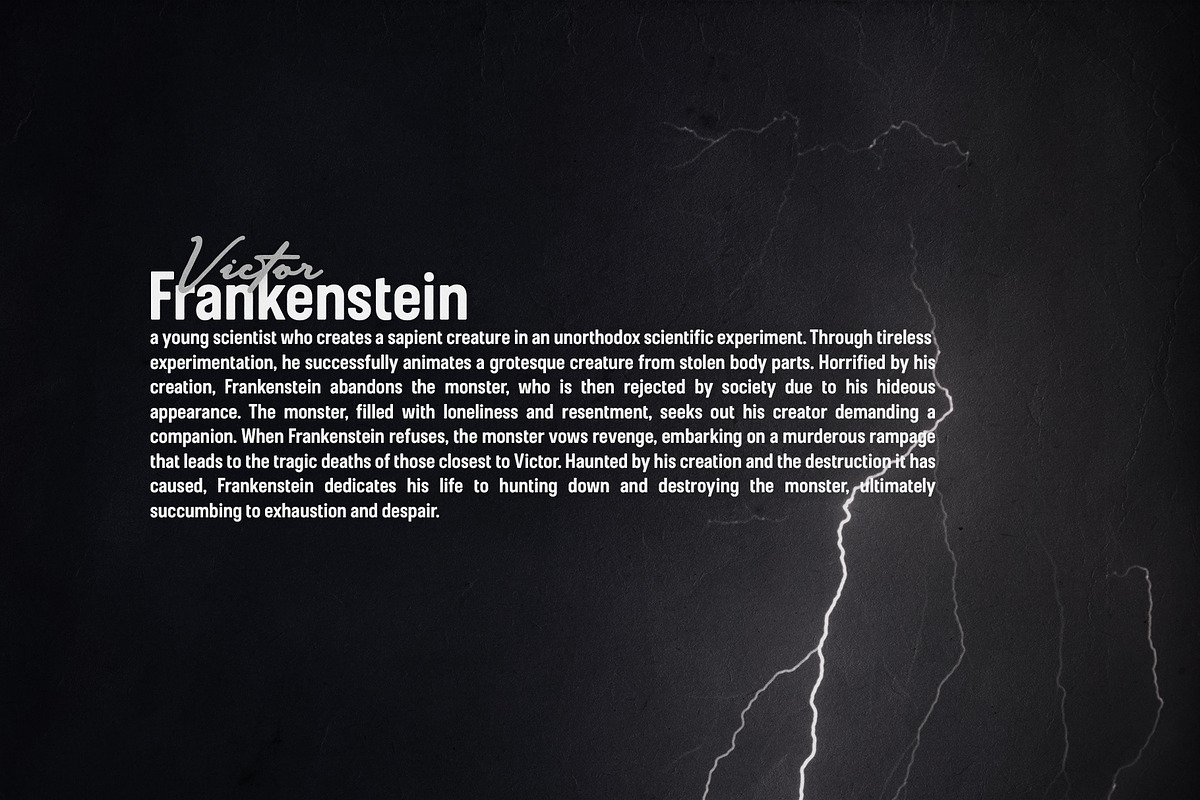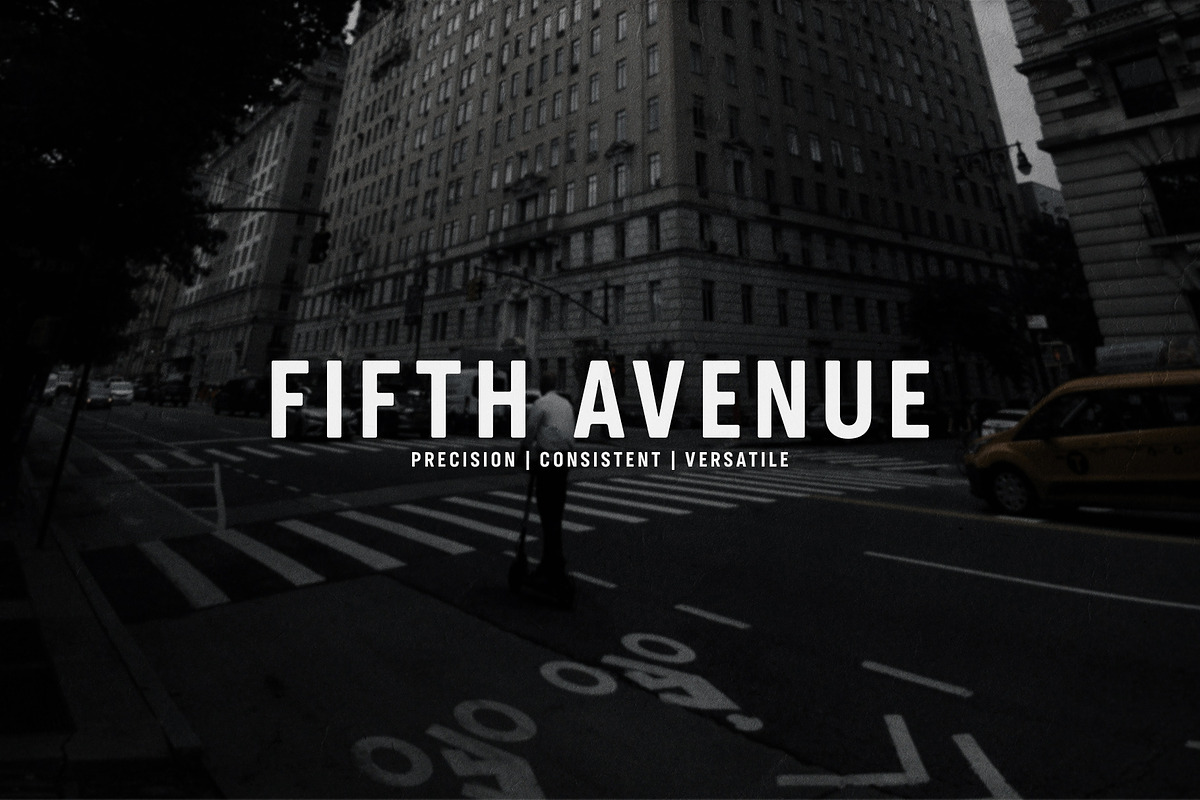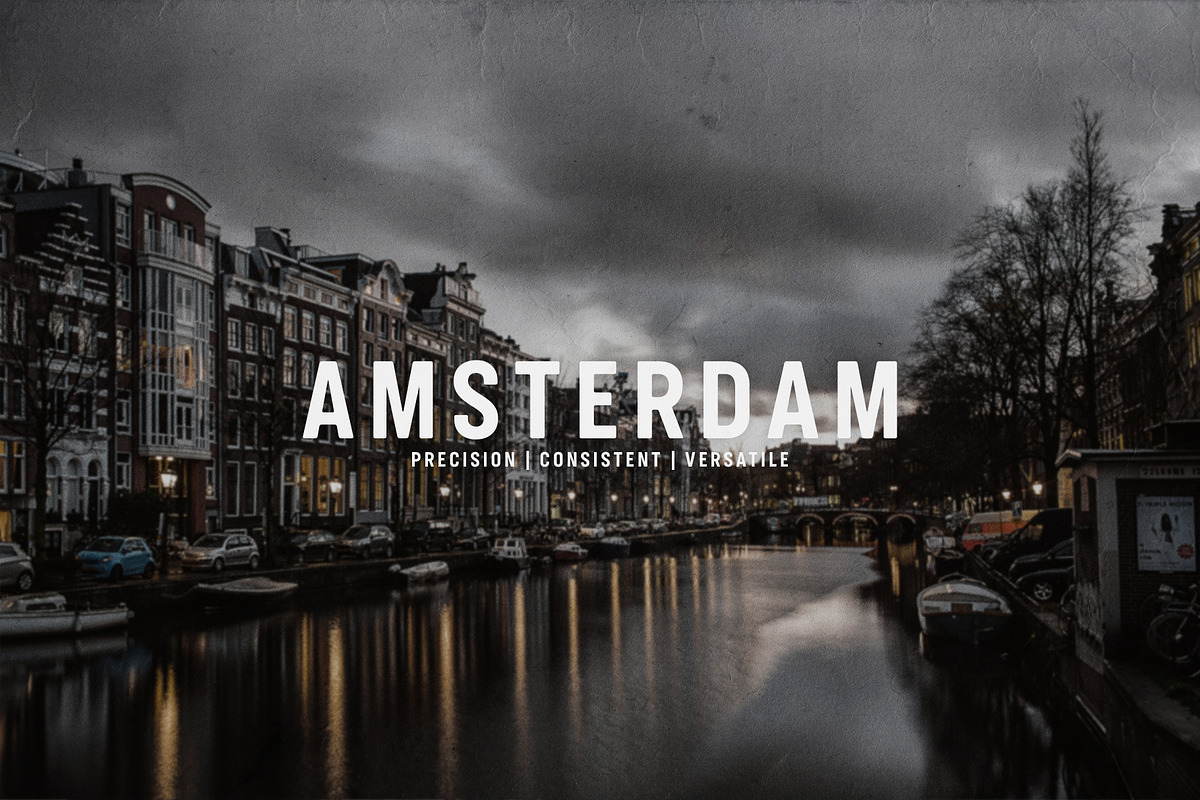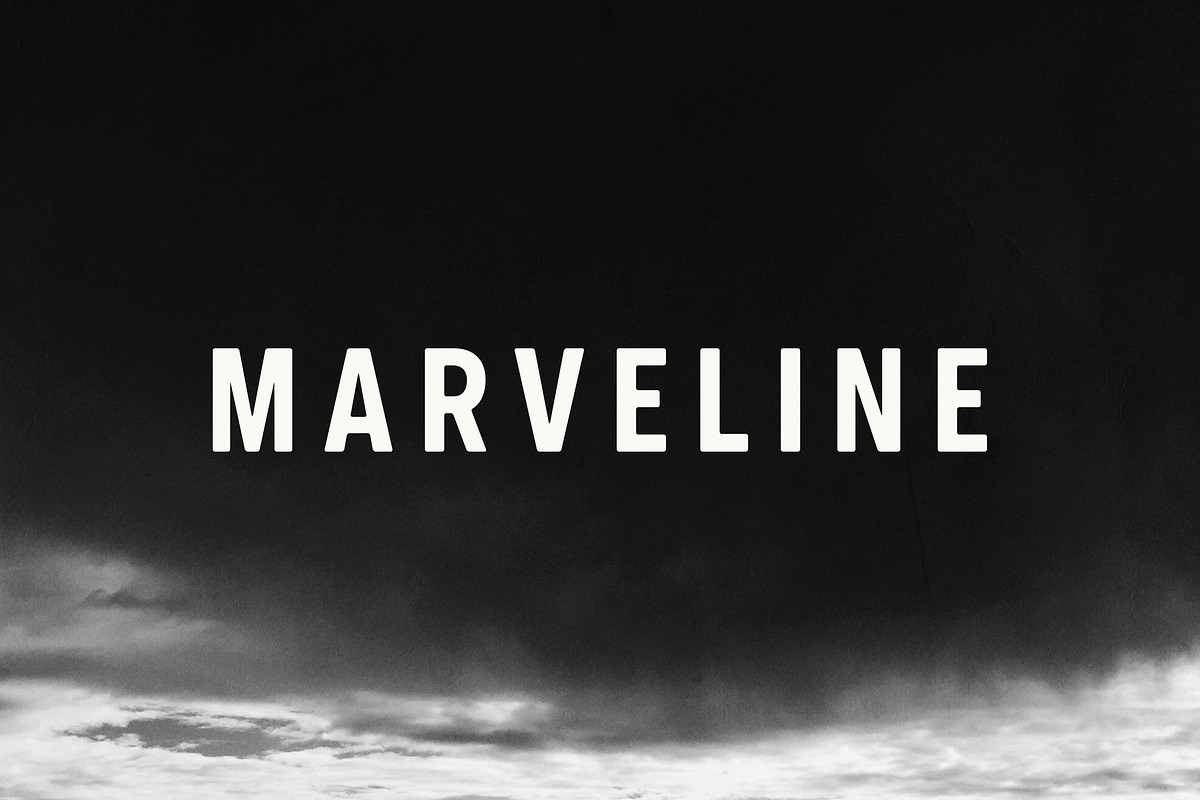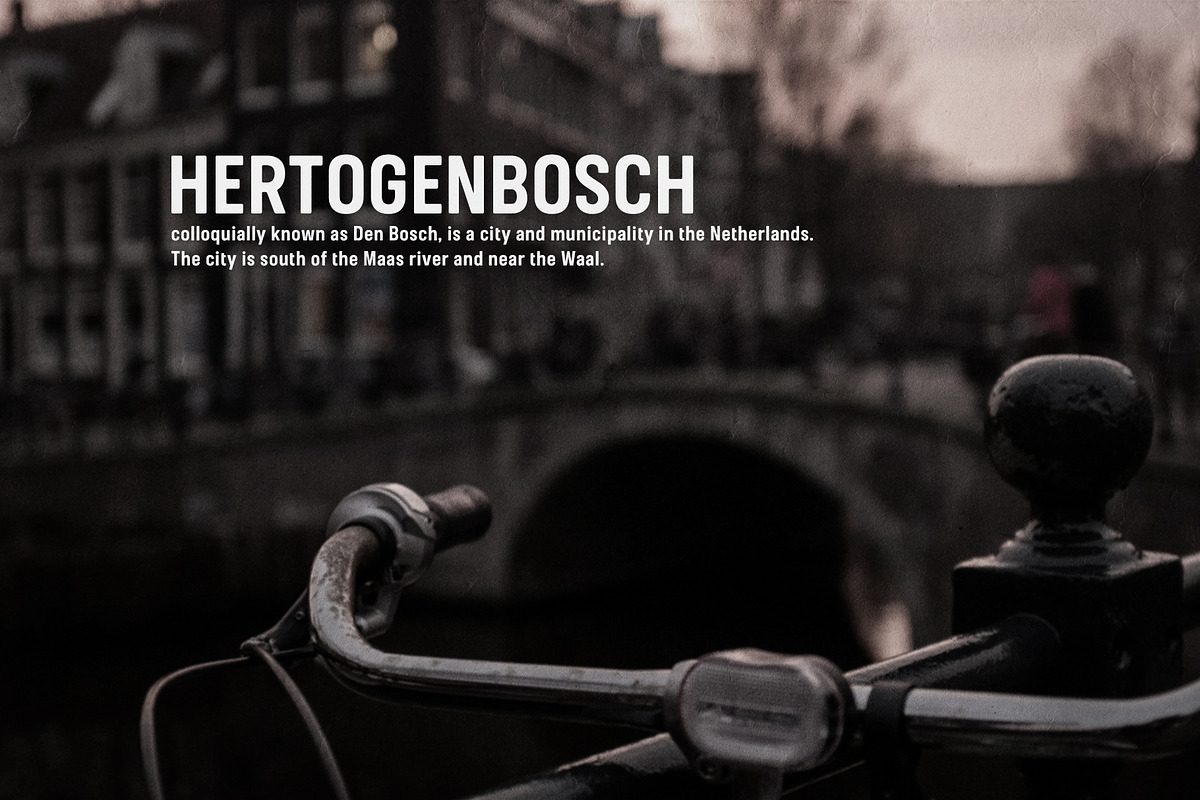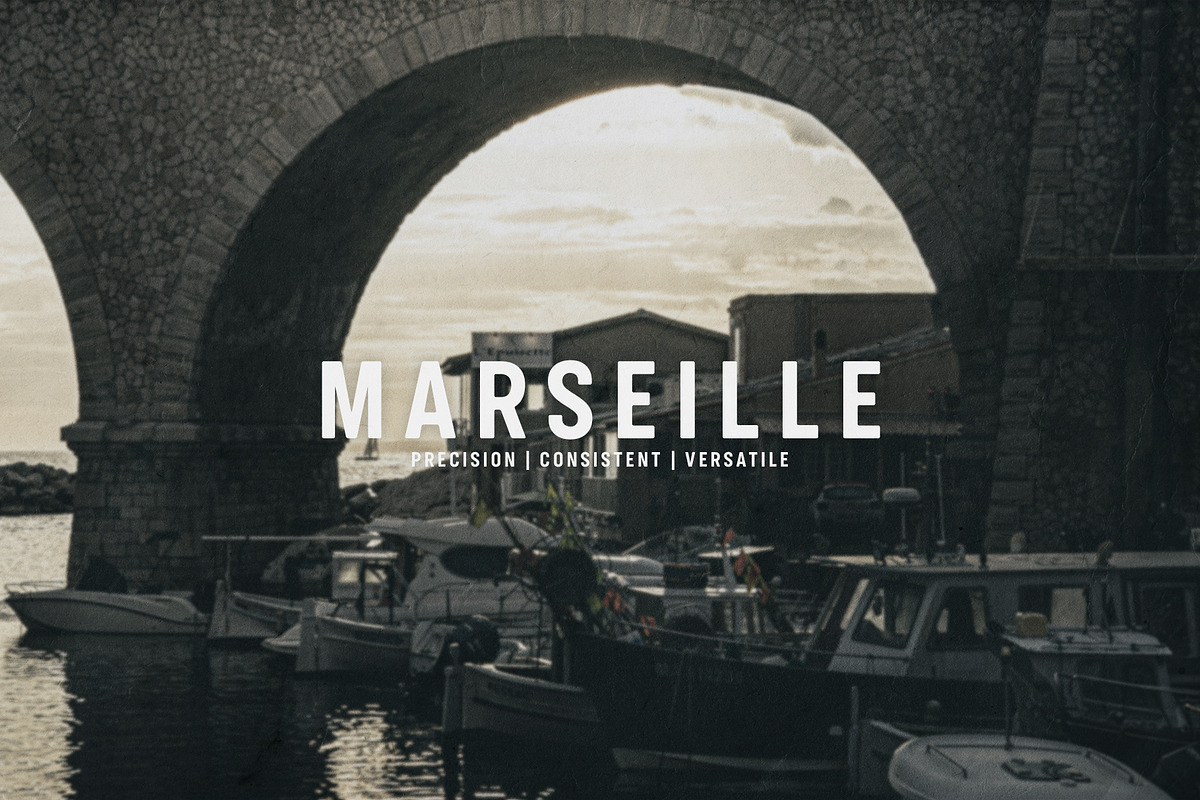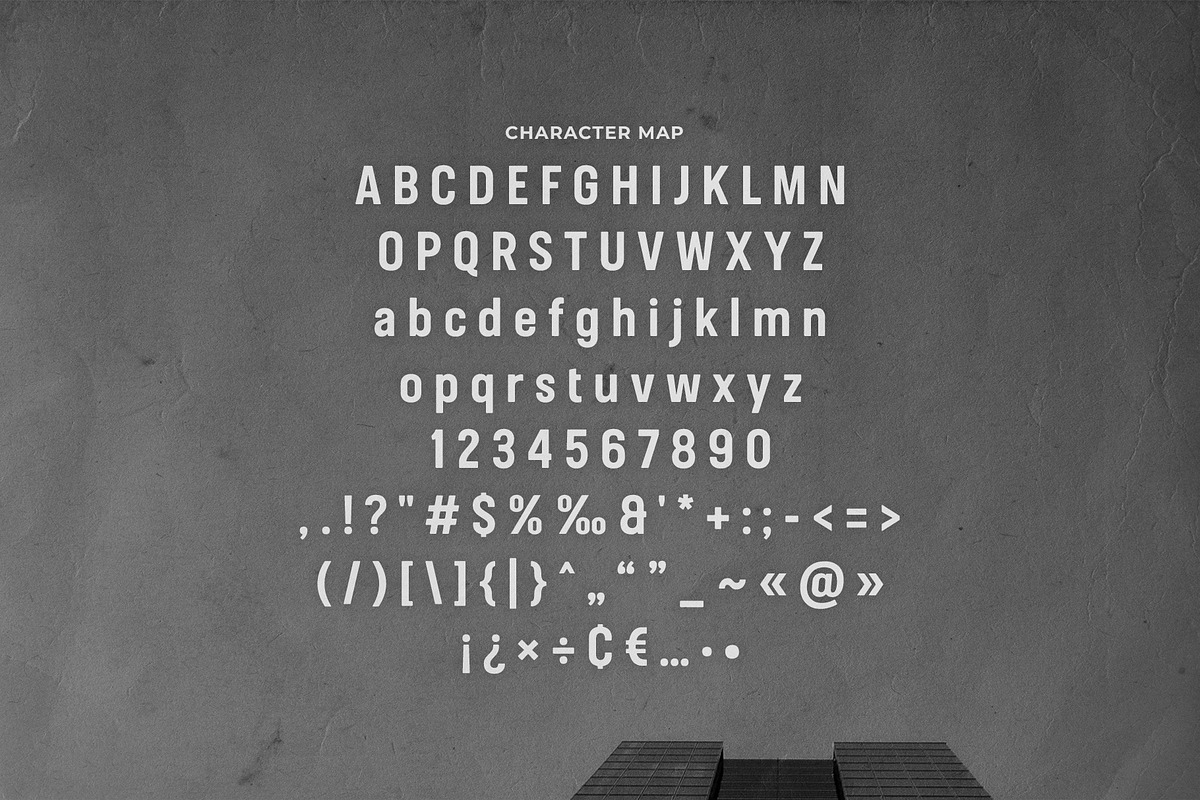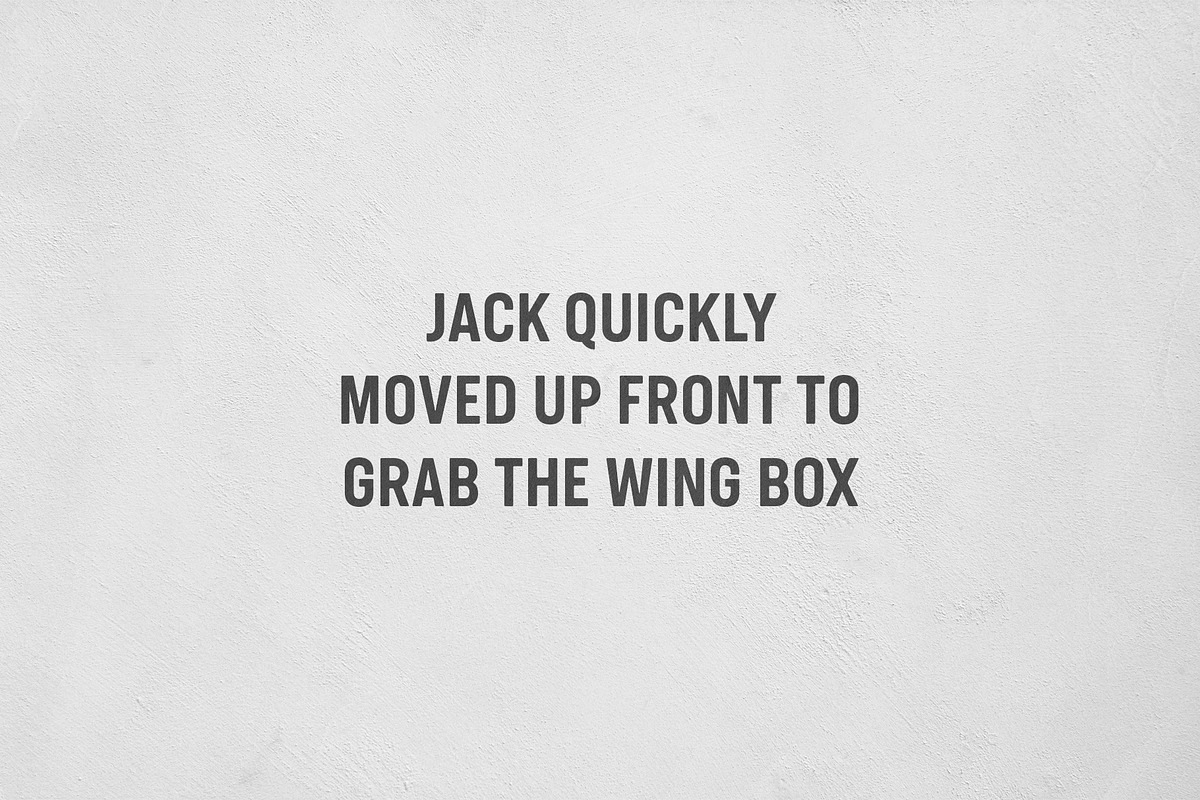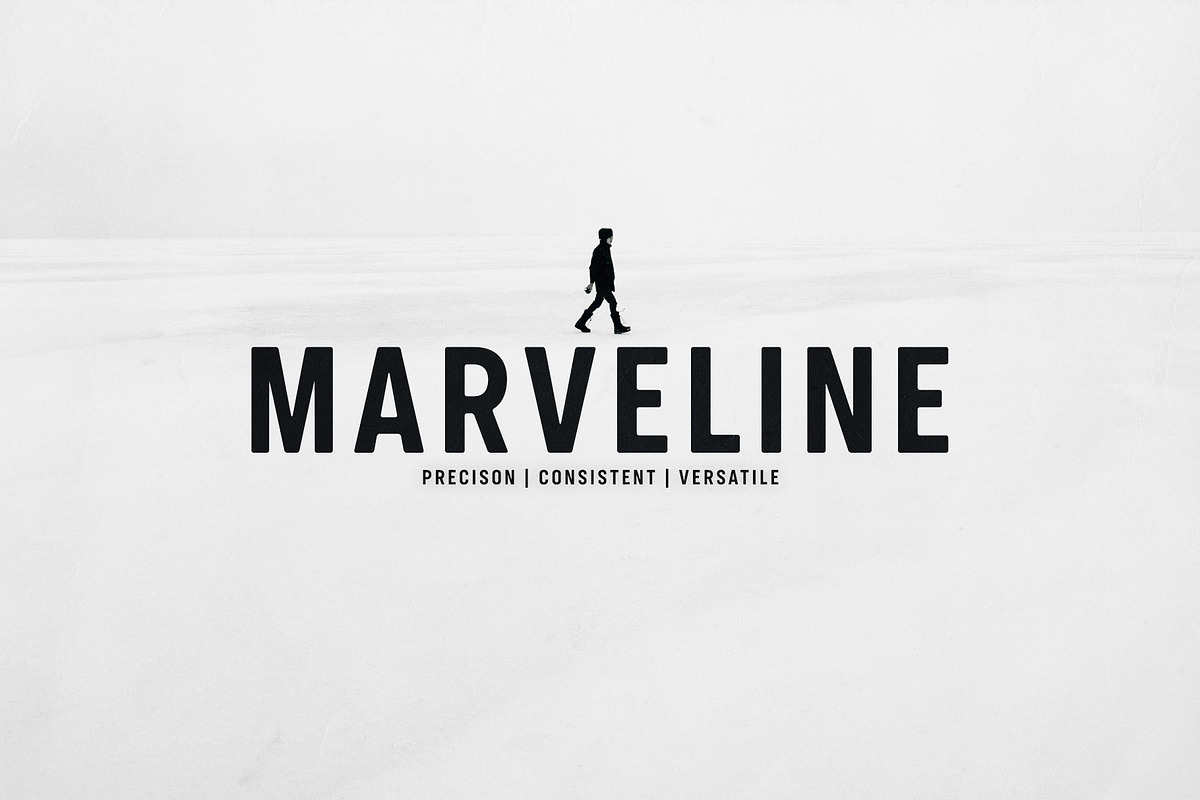
Marveline | Versatile Sans Serif
Marveline is a curved geometric sans-serif typeface designed with a focus on readability and impact. Its precision lines and consistent stroke widths make it an excellent choice for both display and body copy. Versatile design makes it suitable for a wide range of projects, from branding and advertising to editorial design.